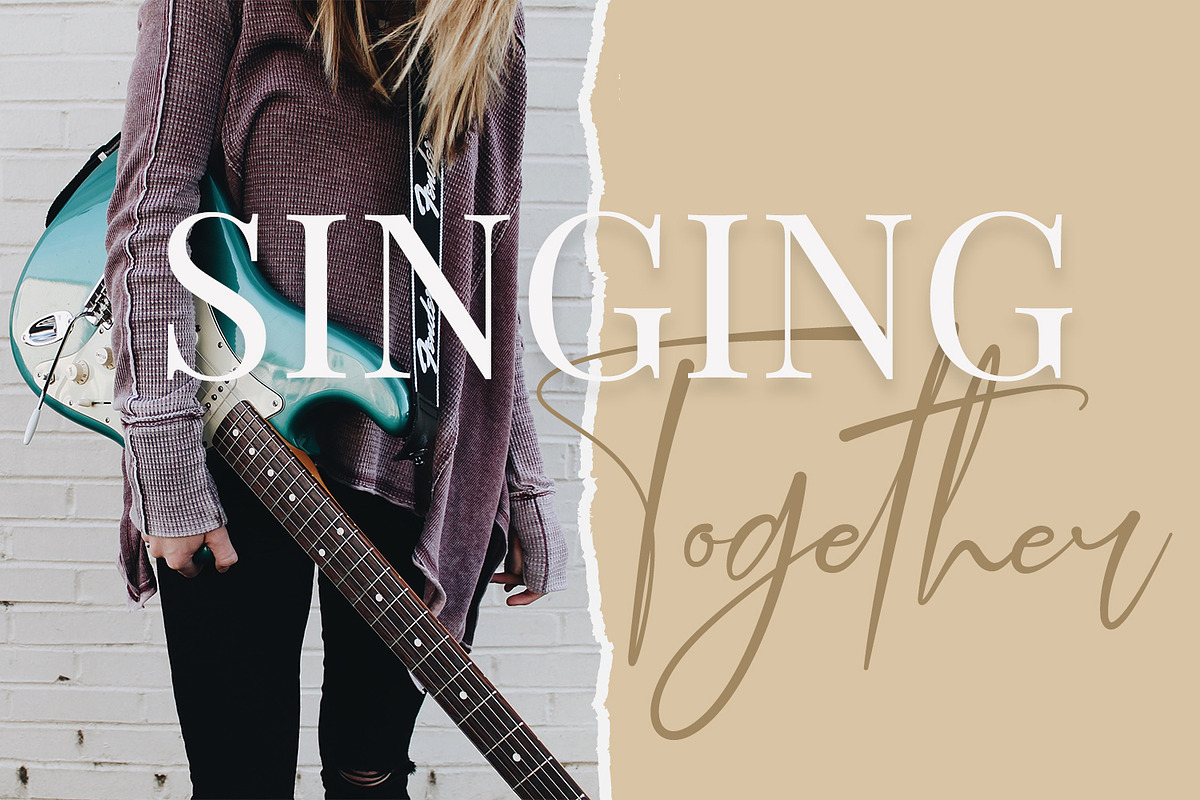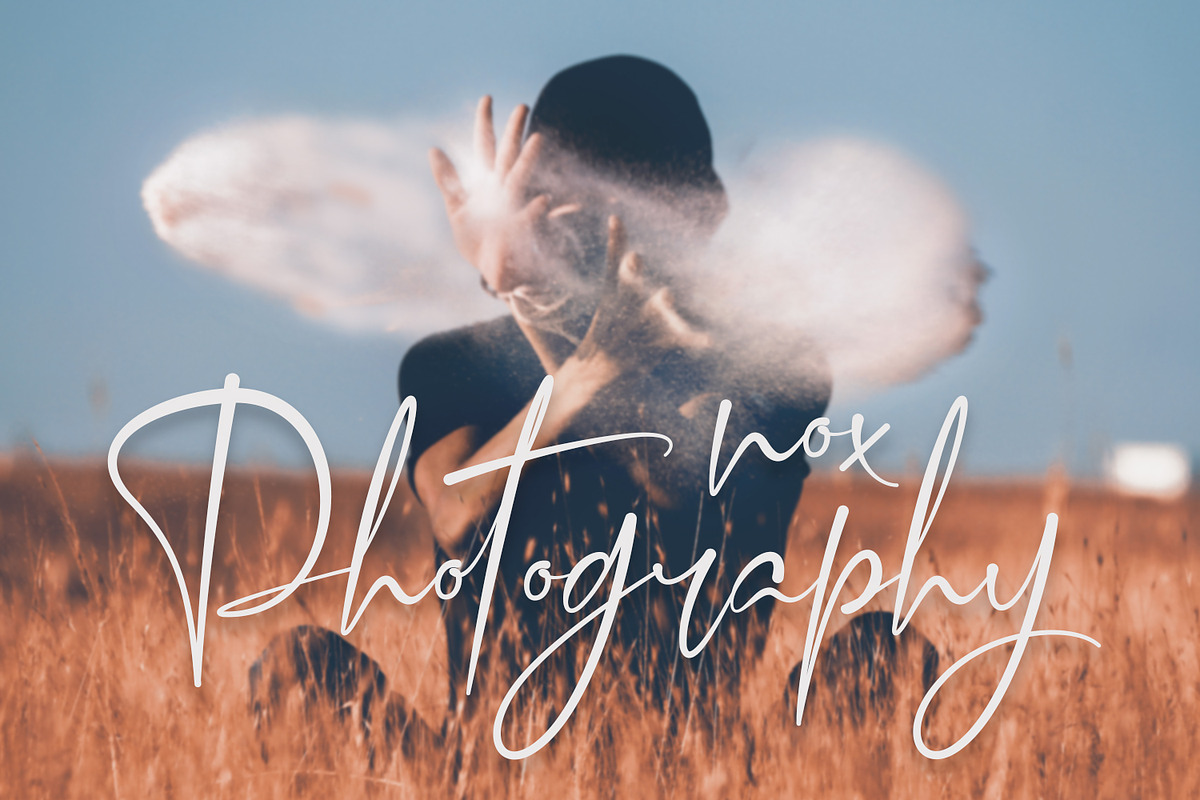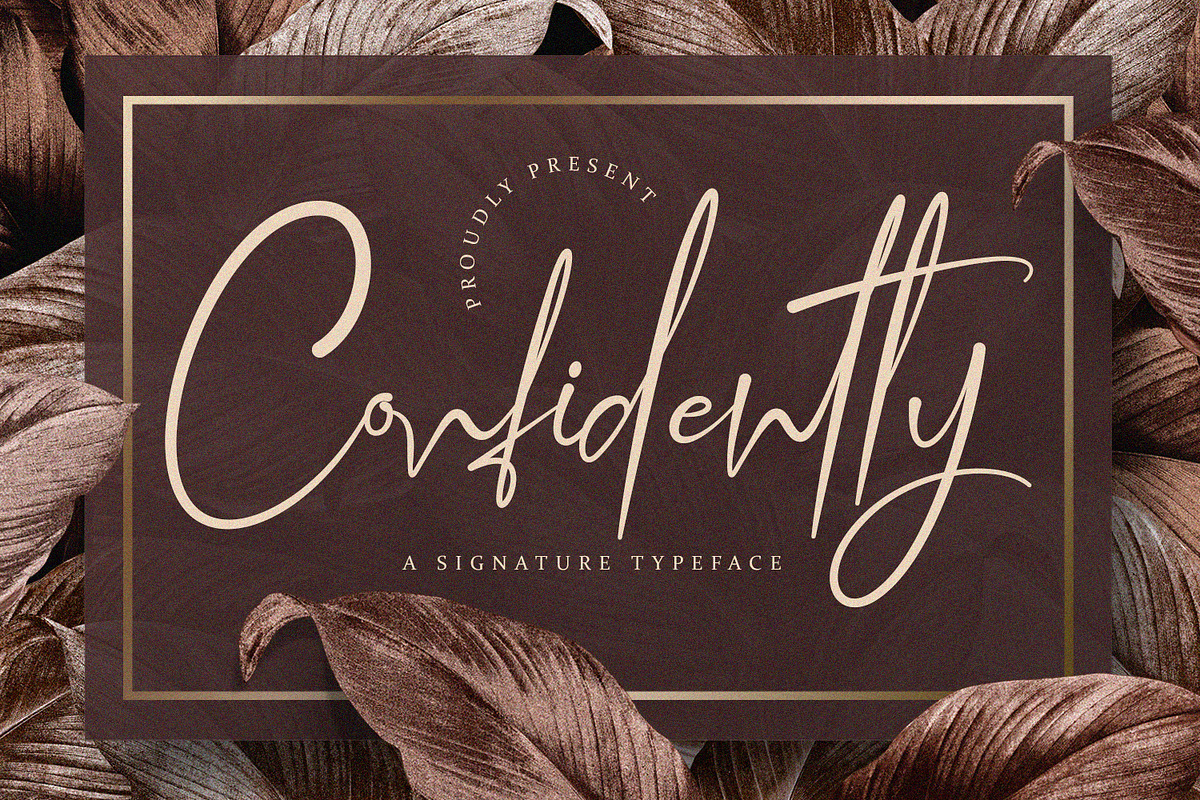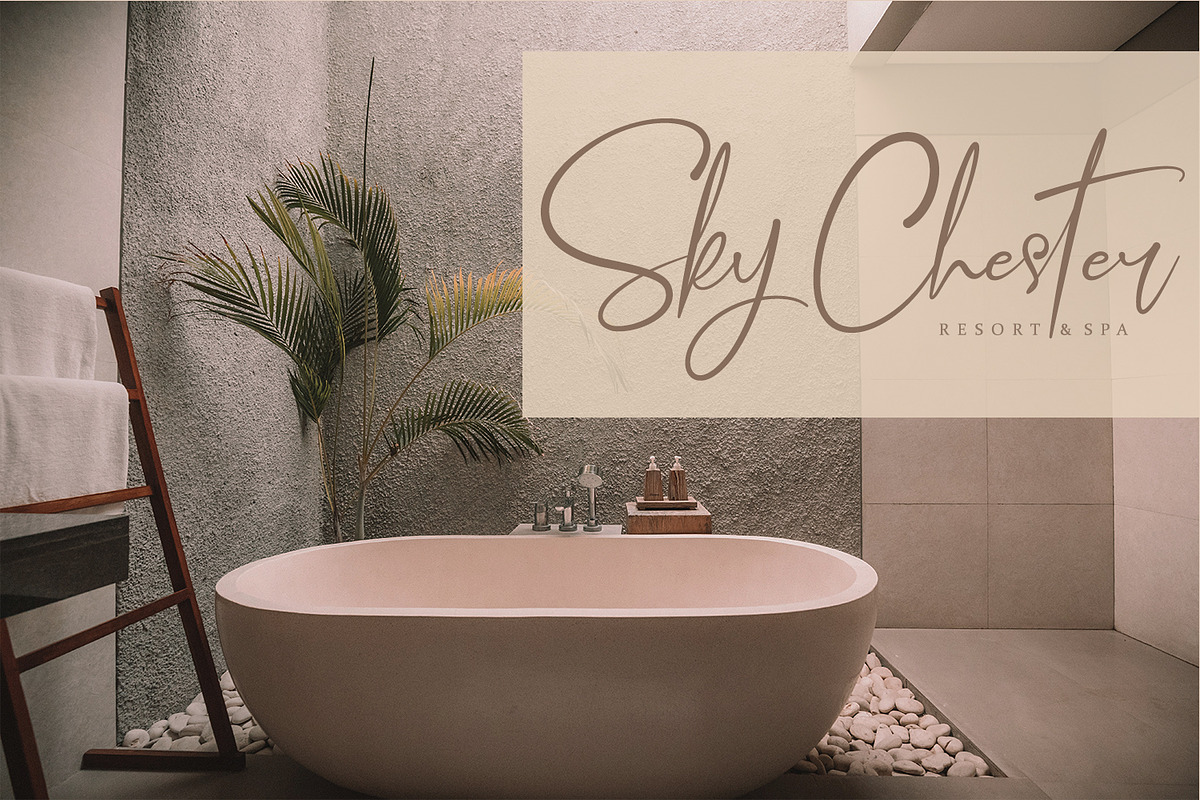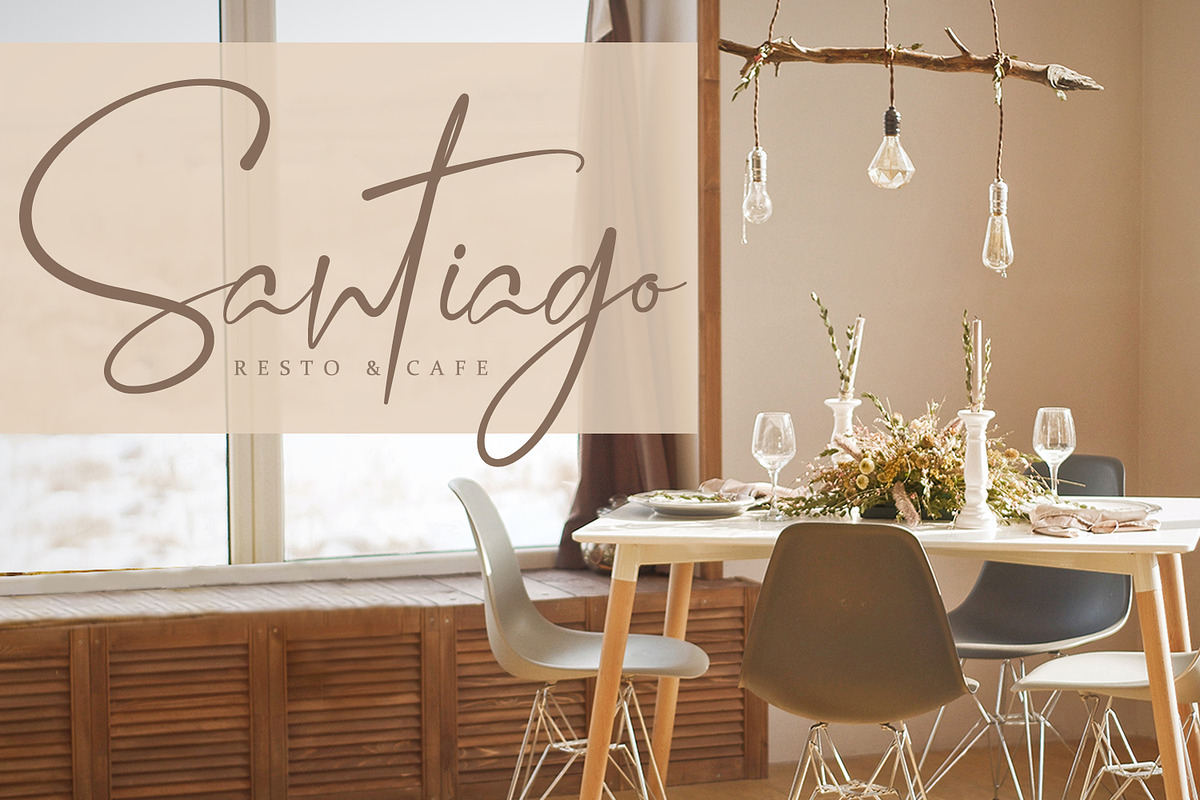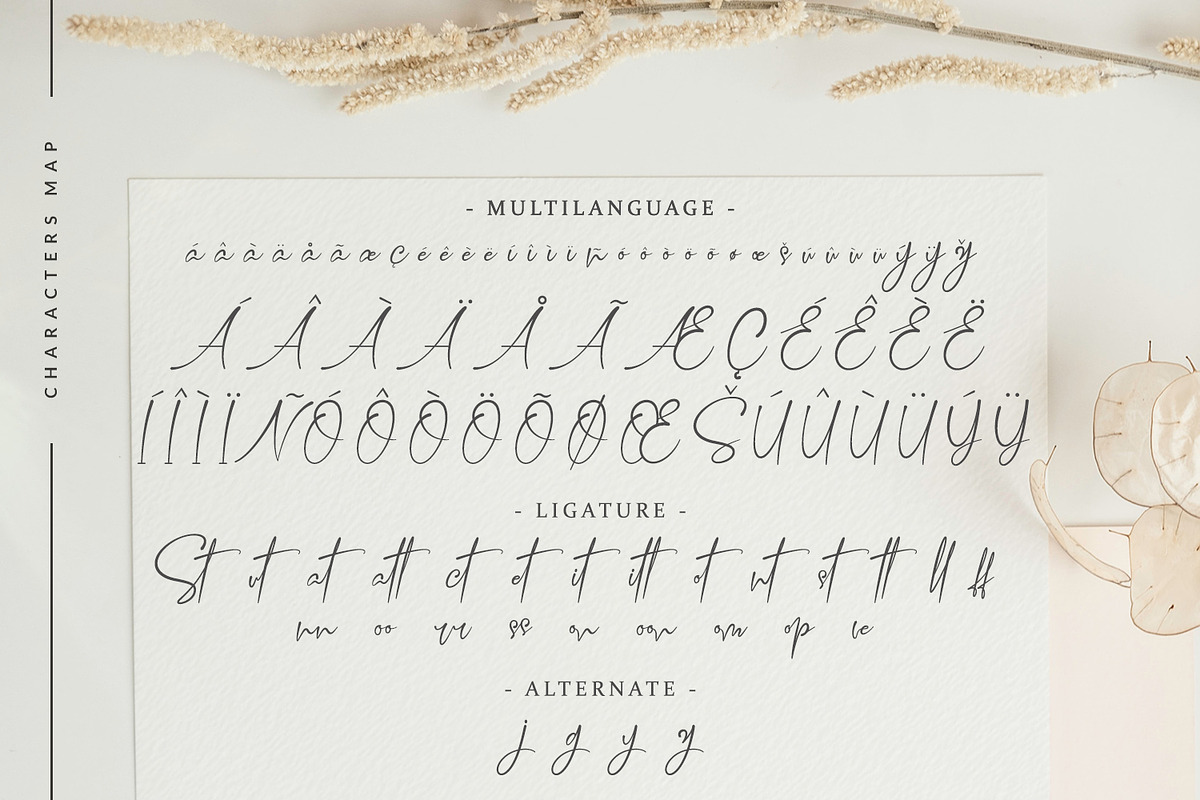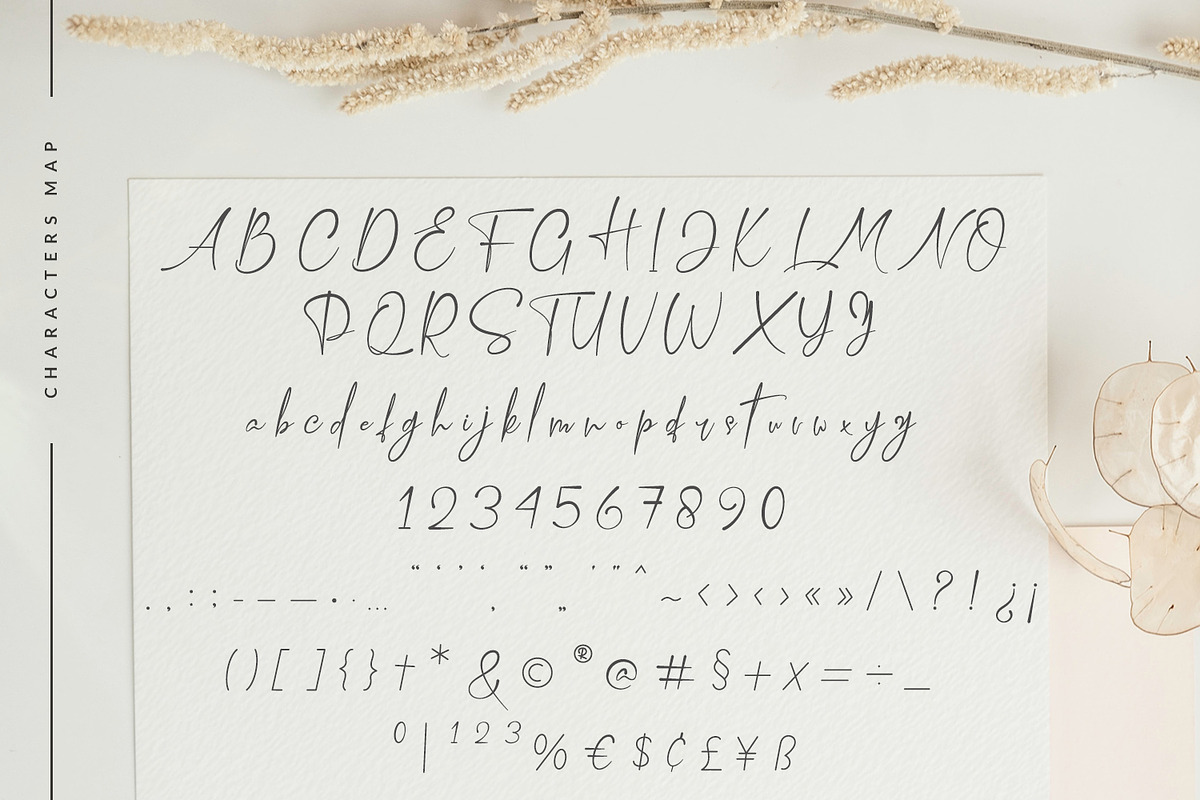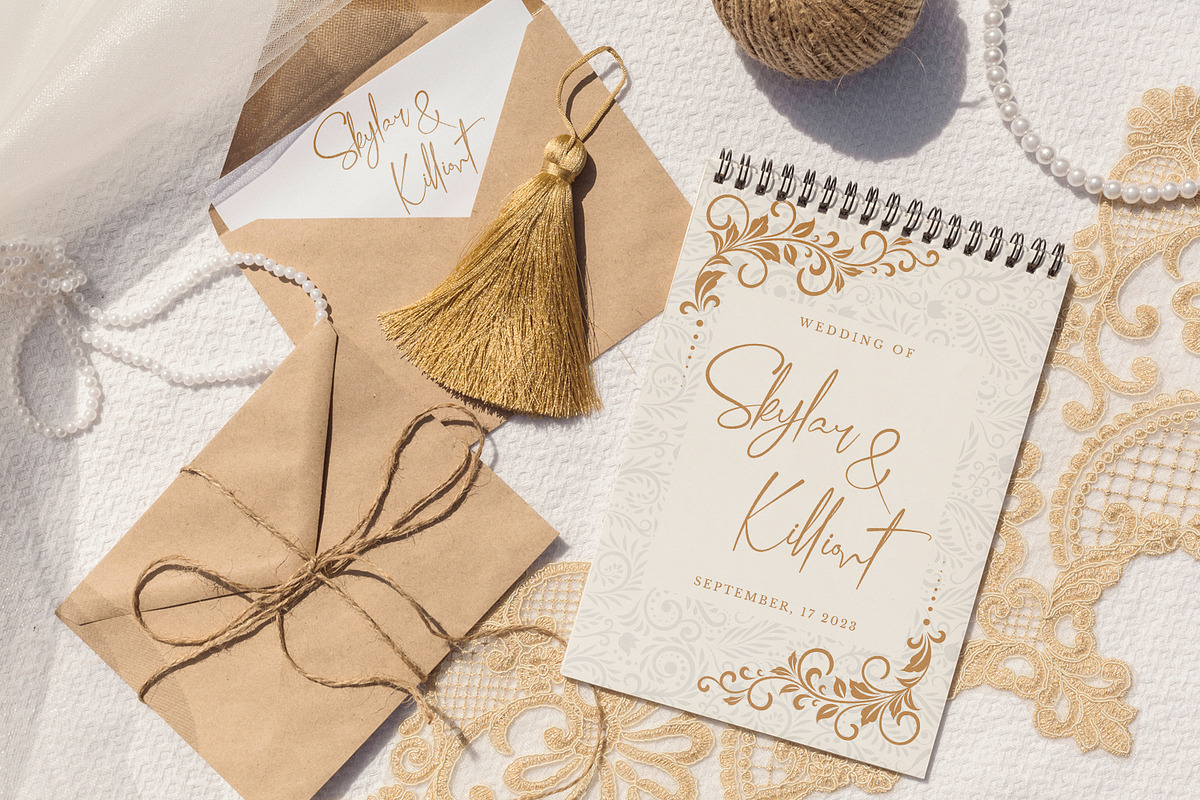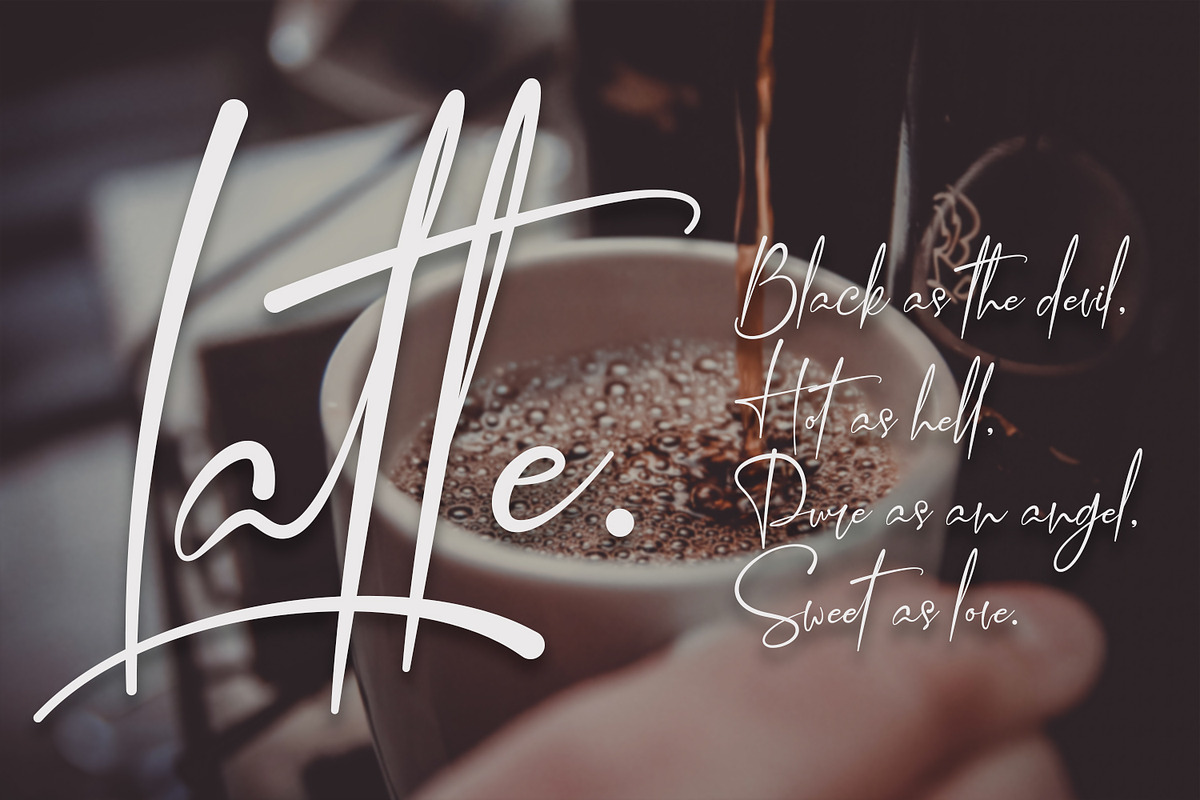
Confidently - Handwritten Font
Confidently is a luxury Handwritten font, will be suitable for any projects such as logos, branding projects, homeware designs, product packaging, mugs, quotes, posters, shopping bags, t-shirts, book covers, name card, invitation cards, greeting cards, label, photography, watermark, special events, and all your other lovely projects that need beautiful handwriting taste.